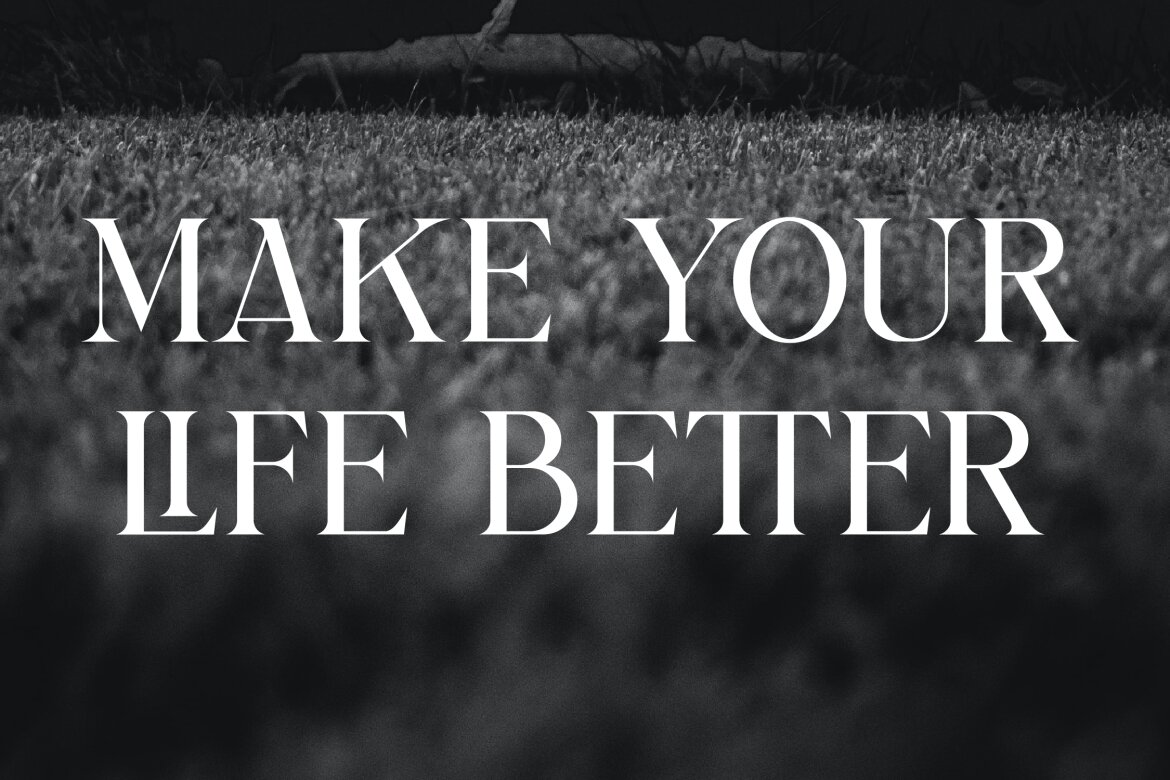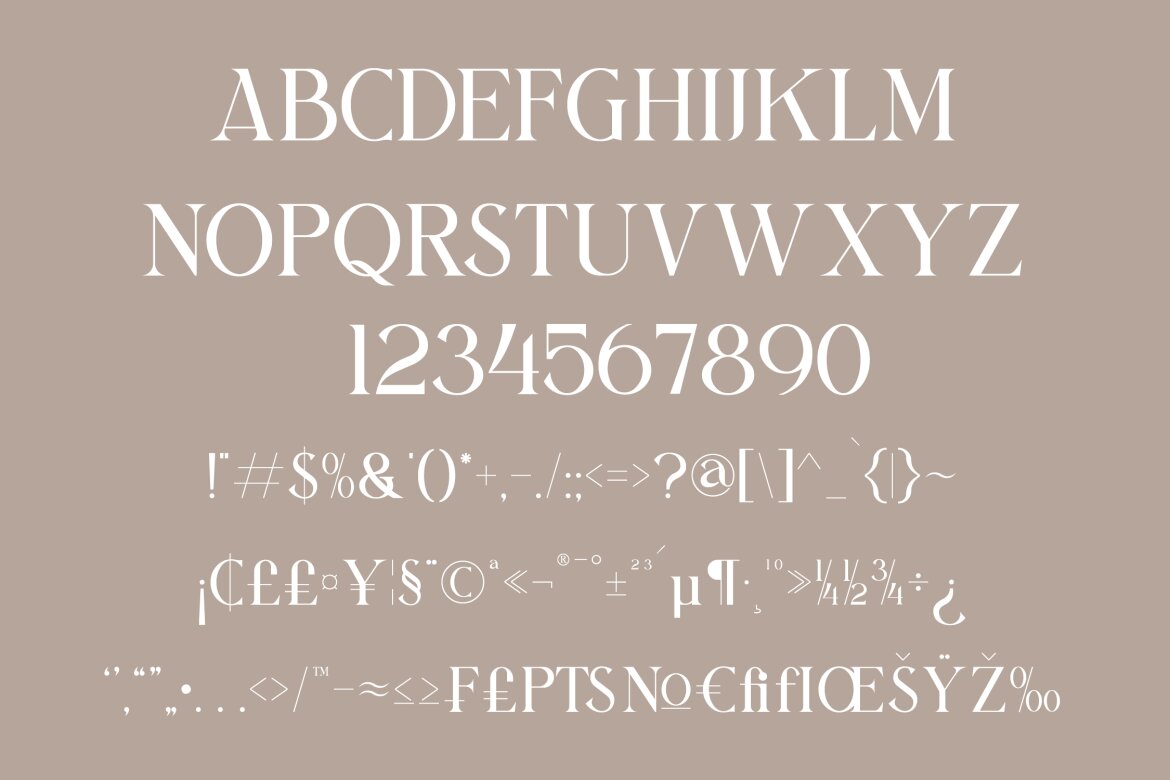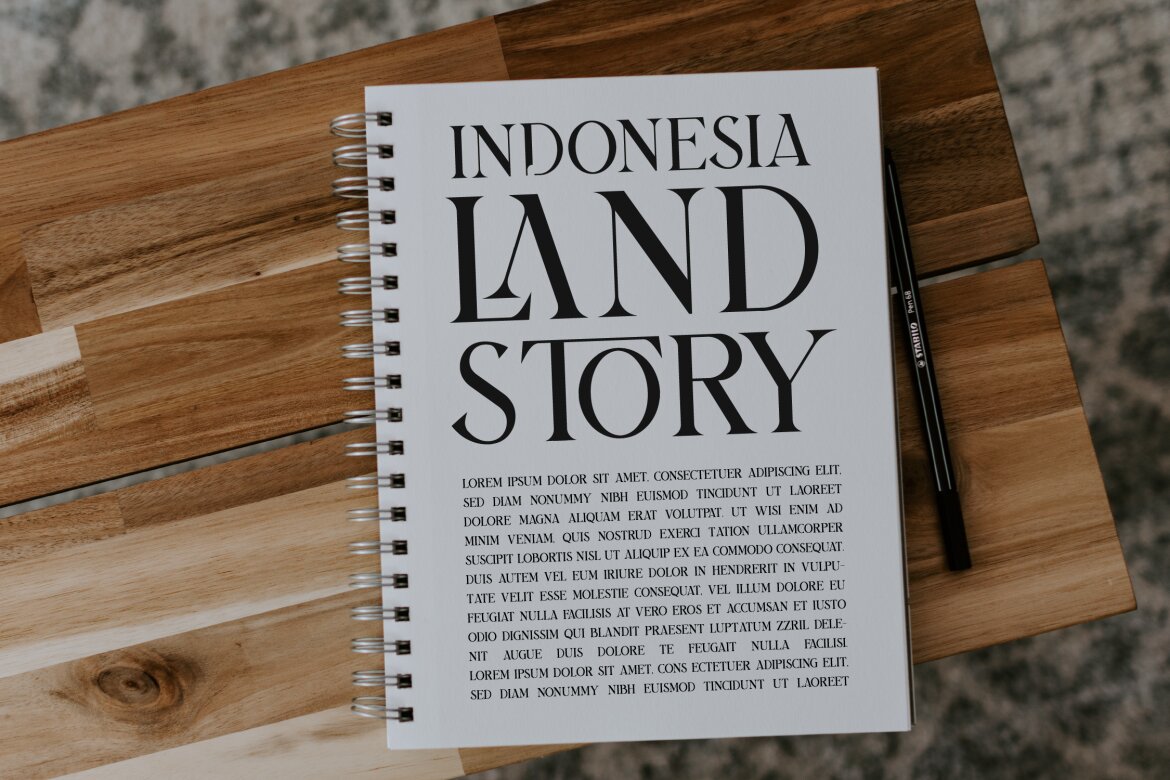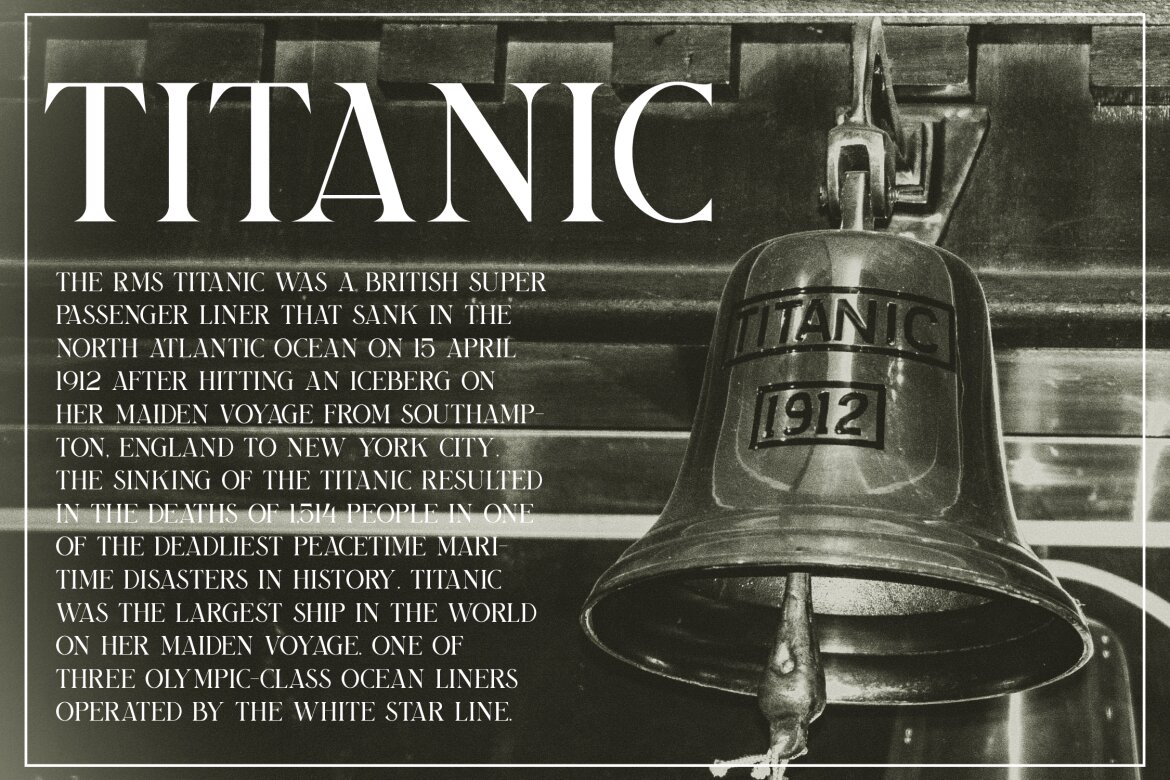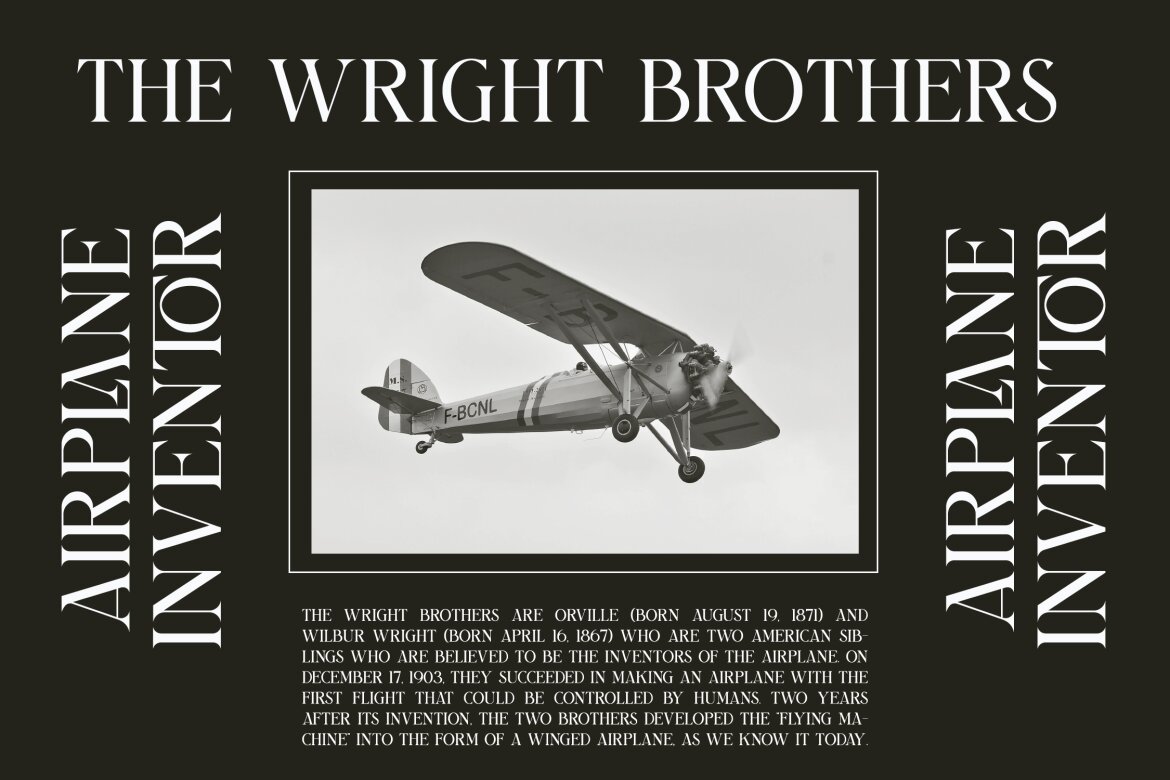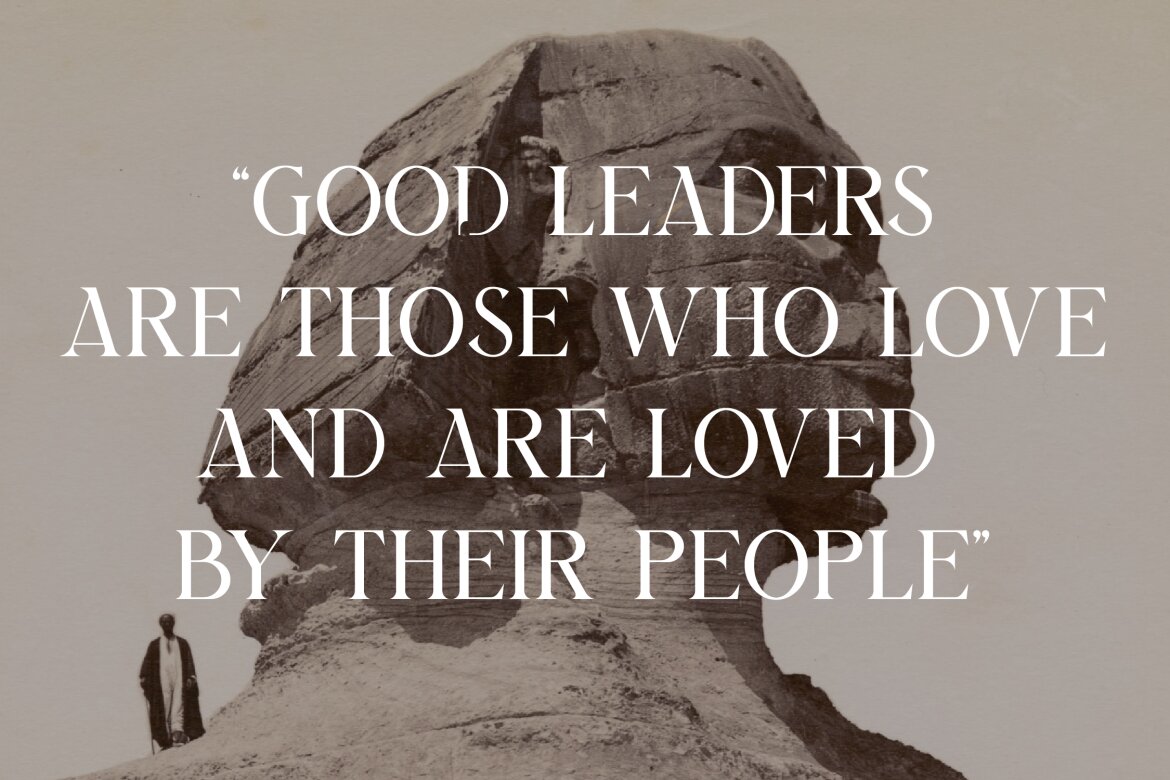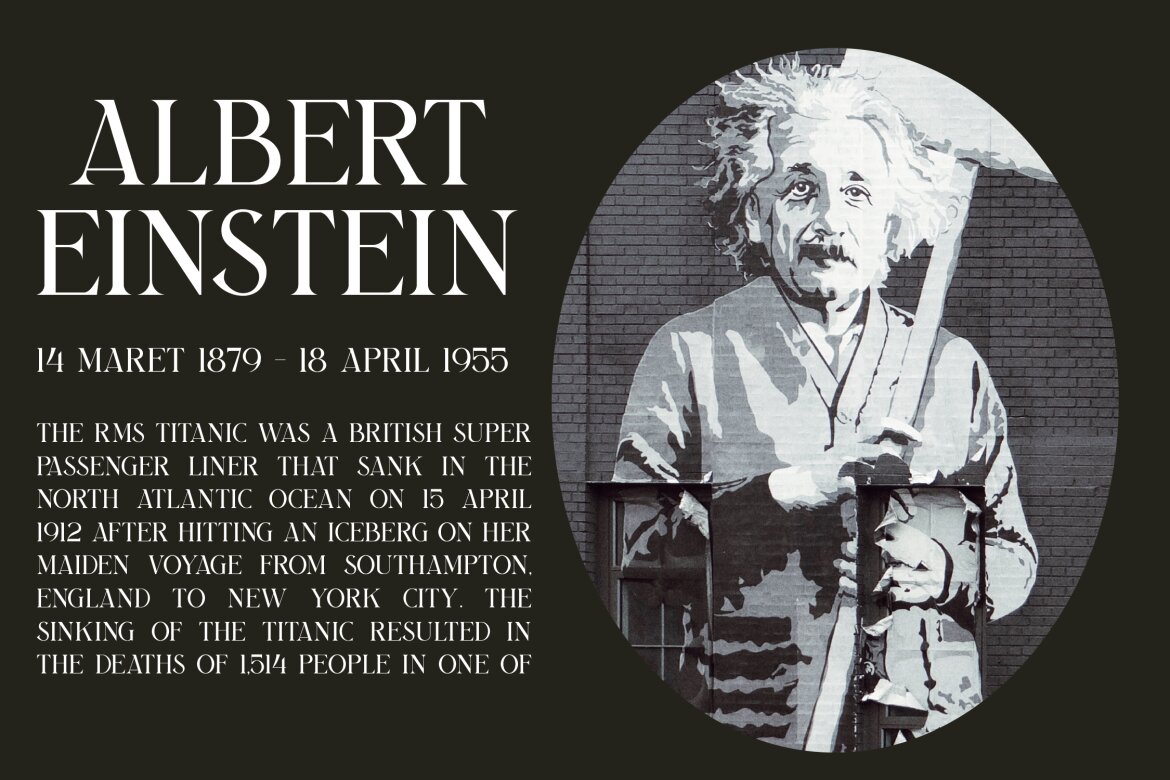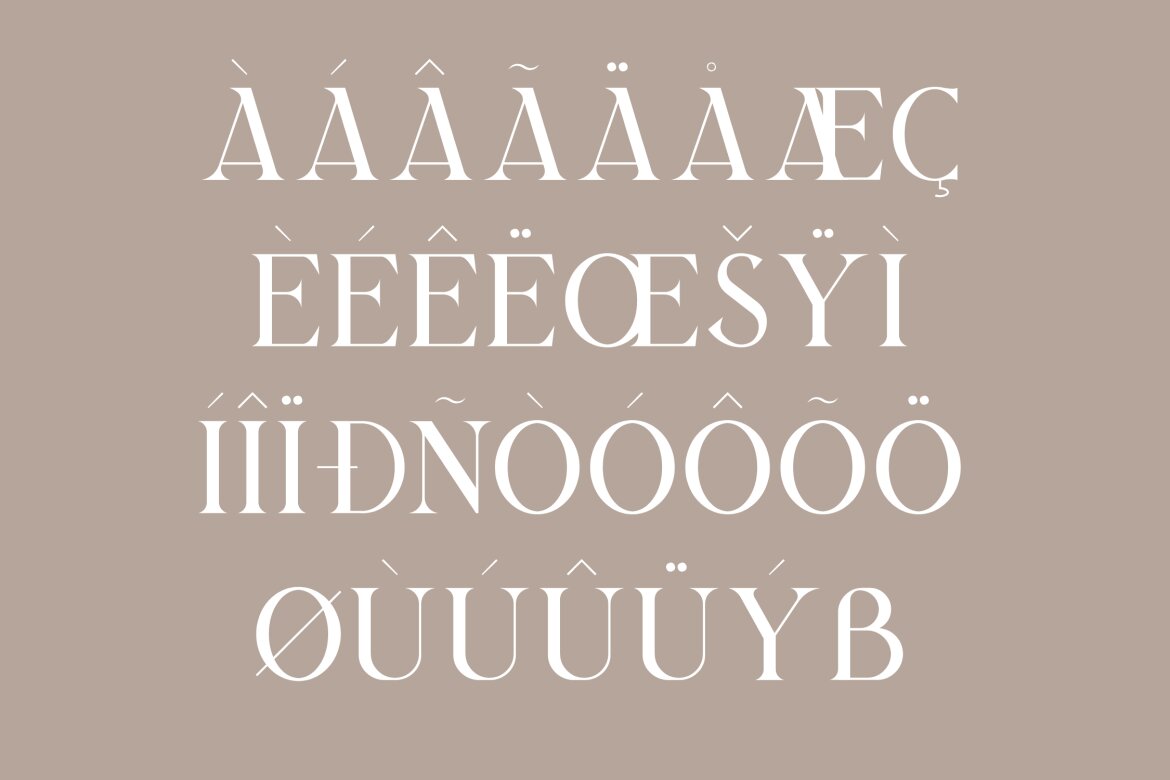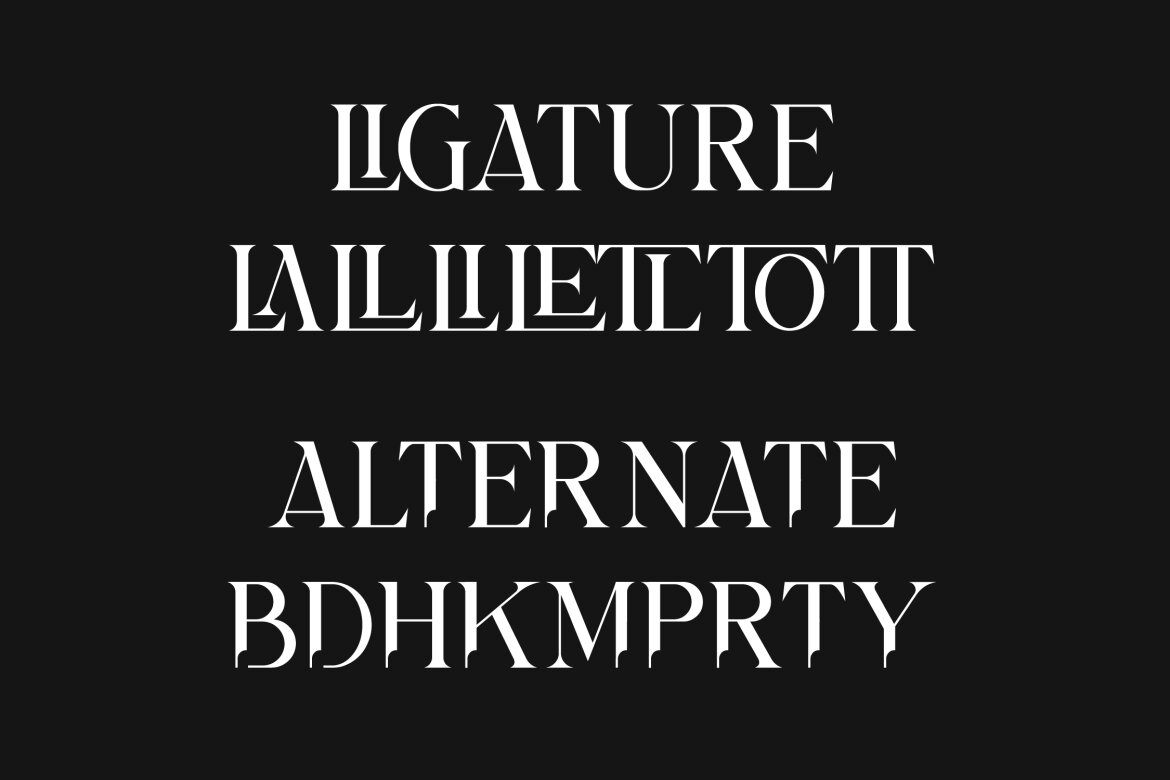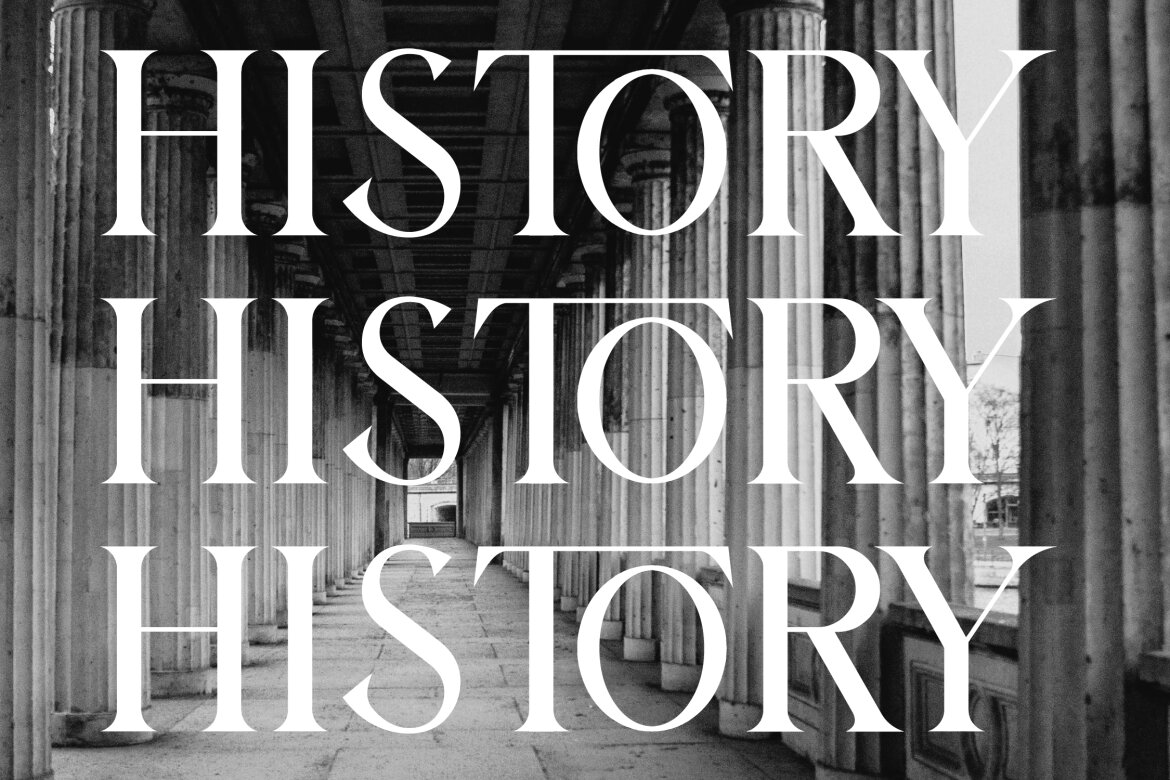
Bilargy Classic Serif FREE Font
We are proud to present the Bilargy Classic Serif Font, created by Maryamtype Studio, a serif typeface that has a unique style & classic look. This typeface is perfect for elegant & luxurious logos, book or movie title designs, fashion brands, magazines, clothing, fonts, quotes and more.
• this typeface is perfect for book or movie title designs,
• this typeface is perfect for logos